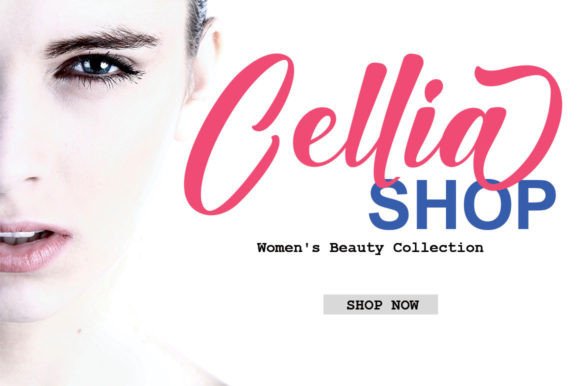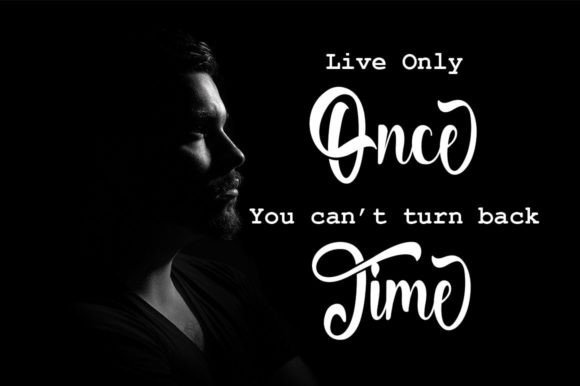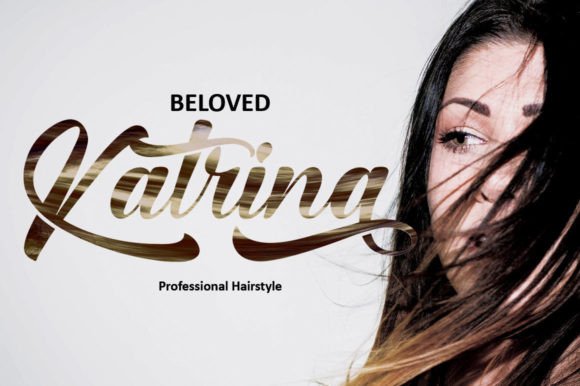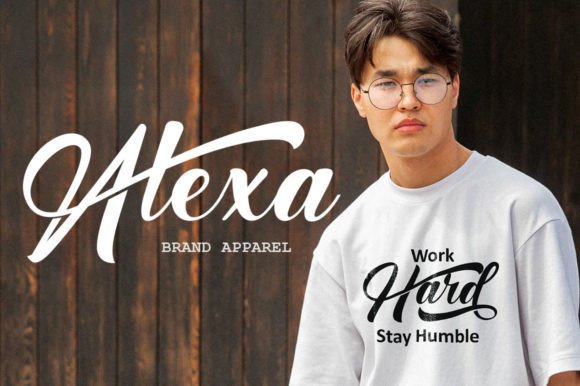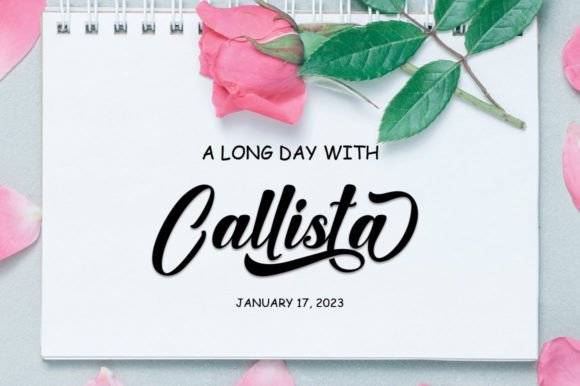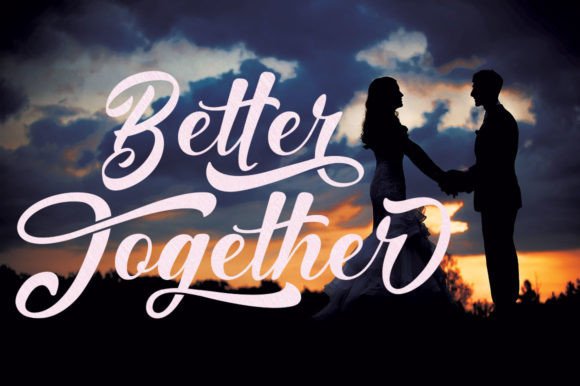
Introduction to Kiblatain Font
Remember the moment when you first saw your wedding invitation or a beautifully crafted quote? The sense of wonder and magic it evokes is what makes typography truly special. For designers, finding the right font can make or break a project. That’s why we’re excited to introduce you to the Kiblatain Font, a stunning and elegant script font that’s sure to add a touch of sophistication to any design.
As a valuable resource for designers, the Kiblatain Font is perfect for creative projects that require a high-quality, handwritten touch. Its versatility makes it suitable for a wide range of designs, from wedding invitations and thank you cards to quotes and logos. Plus, it’s available for free download, making it an excellent addition to any design arsenal.
Key Features of Kiblatain Font
- High-quality design resource for creative projects: The Kiblatain Font is a versatile and stylish font perfect for designers and artists working on various creative projects.
- Unique characteristics: The Kiblatain Font boasts a distinctive and elegant design, with intricate details and subtle flair, making it an excellent choice for designers seeking a high-quality design resource.
- Perfect for design projects: The font is ideal for use in logos, branding materials, typography-based art, and other design projects where a high-quality, stylish font is required.
Honest Review: Kiblatain Font
I recently stumbled upon the Kiblatain Font while searching for a unique, free design resource to spice up my creative project. I was pleasantly surprised by the quality of this font, and I’m excited to share my thoughts with you.
What works well: ✨ The Kiblatain Font has a very distinctive, cursive style that adds a touch of elegance to any design. The font is available for free download, making it a great option for designers on a budget. The transparent background also makes it easy to use with any design element.
What doesn’t work well: ⚠️ The font may be a bit too ornate for some projects, which can make it difficult to read. Additionally, the font is only available in a few different weights, which may limit its versatility.
Here are some of the key features of the Kiblatain Font:
- Unique, cursive style
- Available in a few different weights
Overall, I think the Kiblatain Font is a great addition to any designer’s toolkit. While it may have some limitations, its unique style and high quality make it a valuable resource for creative projects.
Alternatives to Kiblatain Font
Comic Sans MS is a popular font used in various creative projects, especially for informal and playful designs. It’s a great choice for creating a fun and approachable atmosphere. When to use: blog posts, social media graphics, and advertisements. How it compares to Kiblatain Font: Comic Sans MS is more casual and informal compared to Kiblatain Font, which is often used for more professional designs.
Lato Font is a high-quality, free download font that’s ideal for designing logos, headers, and other design elements. It features a clean and modern design, making it perfect for creative projects that require a professional look. When to use: business cards, brochures, and websites. How it compares to Kiblatain Font: Lato Font is more modern and sleek compared to Kiblatain Font, which has a more vintage feel.